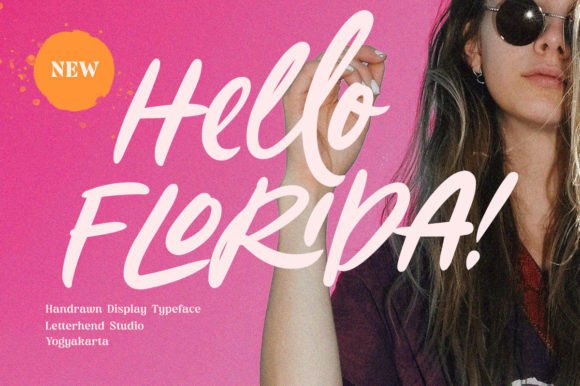
Journey into the realm of impeccable aesthetics and introduce yourself to the Hello Florida Font, a breathtaking handwritten font that radiates a captivating blend of modernity and casual charm. Each letter, meticulously crafted and adorned with intricate details, dances across the page with an effortless grace that mirrors your own.
With Hello Florida Font, you'll embark on a creative expedition, transforming your digital creations into masterpieces. Whether you're crafting alluring Instagram bios, designing heartfelt invitations, or composing captivating social media posts, this font will elevate your words, imbuing them with a touch of elegance and sophistication.
Dive into a world of limitless possibilities, where your imagination knows no bounds. Experiment with Hello Florida Font's playful curves and enchanting swashes, adding a touch of whimsy to your designs. Let your creativity soar as you explore the font's versatility, discovering endless ways to express yourself.
Hello Florida Font is more than just a font; it's a gateway to unlocking your true creative potential. Its PUA encoding grants you effortless access to a treasure trove of glyphs and swashes, empowering you to unleash your artistic vision. Seamlessly integrate Hello Florida Font into your design software and watch as it effortlessly transforms your words into works of art.
Embrace the Hello Florida Font, and embark on a creative odyssey where your designs take centre stage. Let your imagination run wild as you witness the transformative power of this font, leaving an unforgettable impression on your audience.